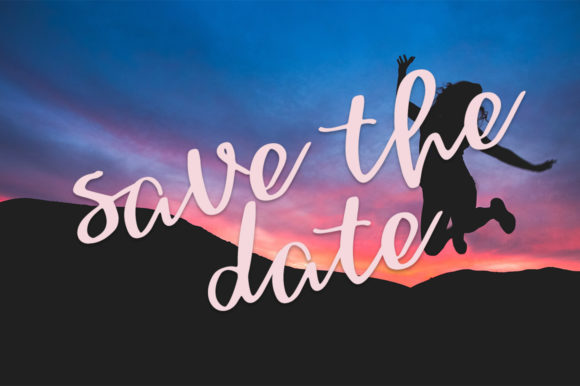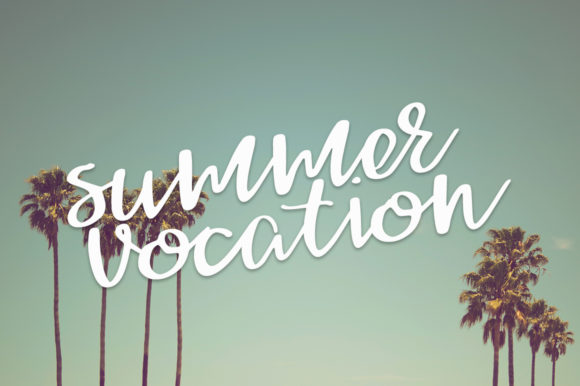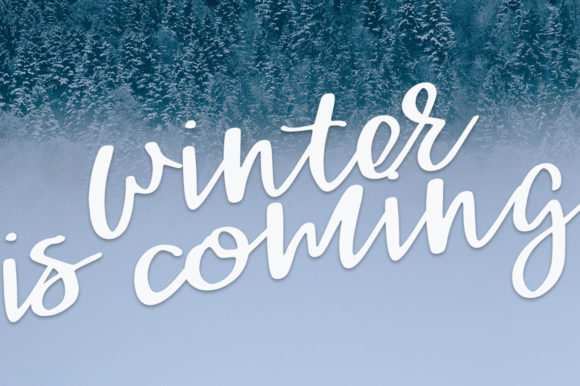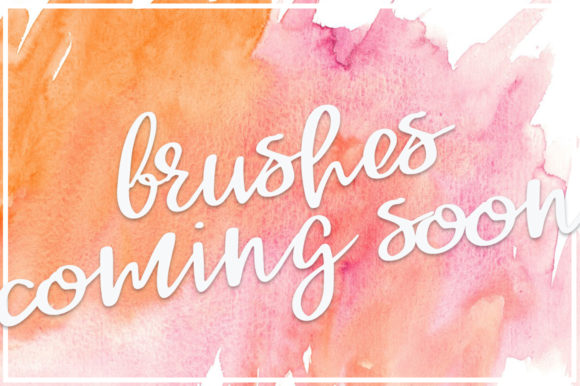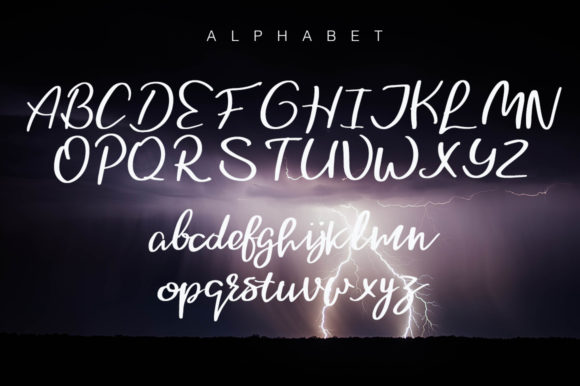
Mistery Font
About Mistery Font
Mistery is an outstanding script font. It maintains its classy calligraphic influences while feeling contemporary and fresh. It is perfect for greeting cards, branding materials, business cards, quotes, posters, websites, merchandise, packaging, invitations and more!